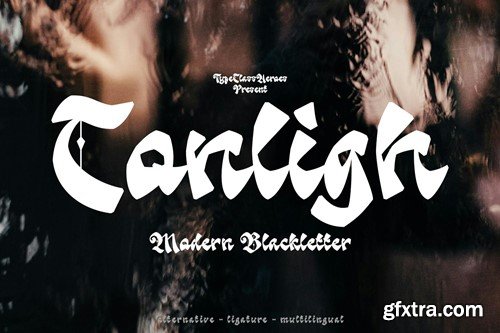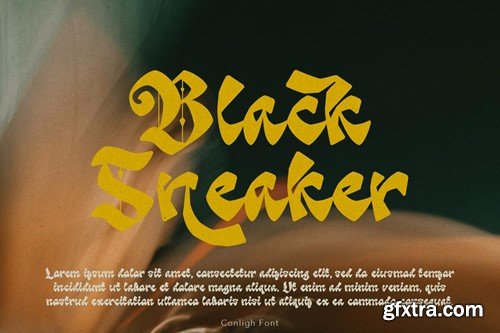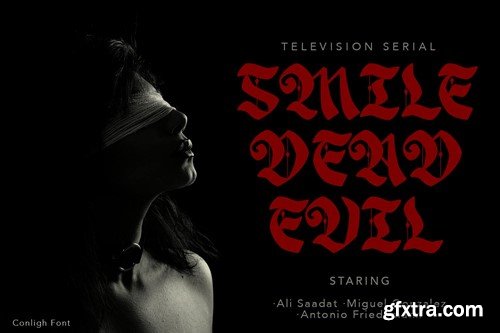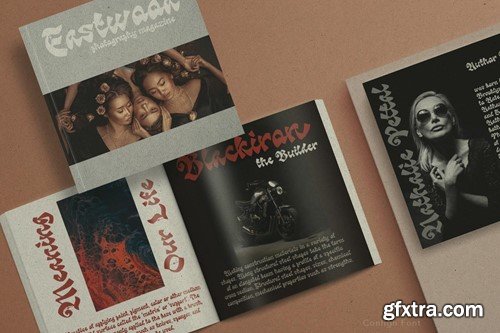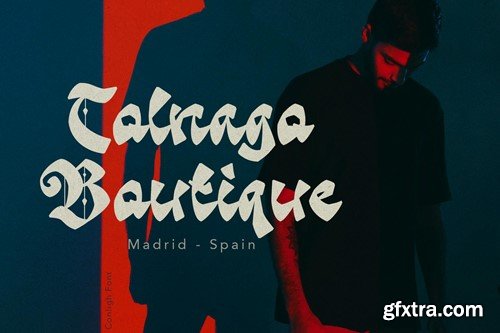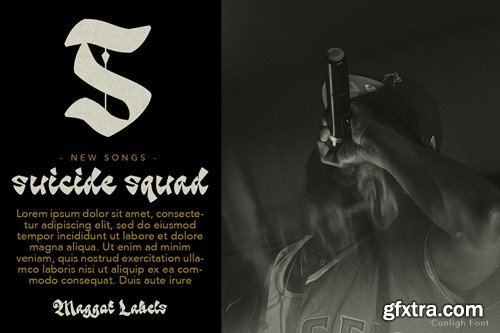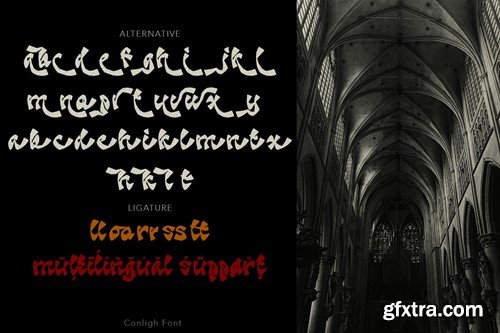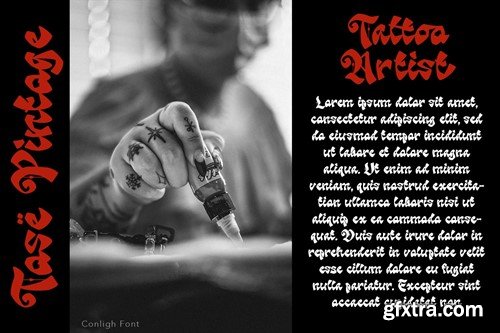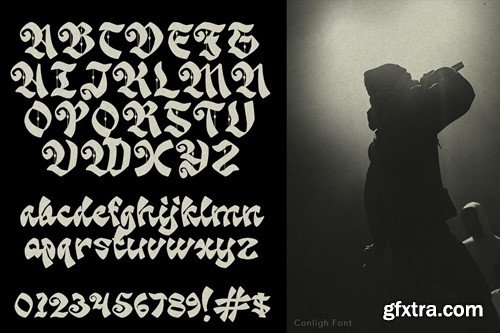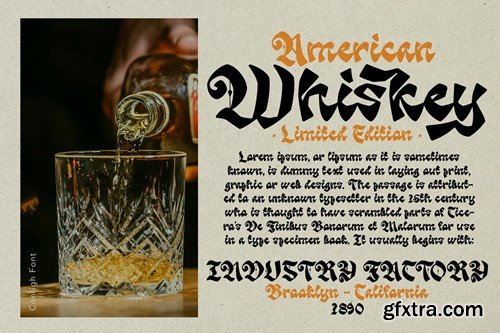
Conligh Blackletter Font
Conligh is a modern blackletter font, made with a stylish impression and supported by alternative with references to various letters that I combine. This font suitable to create any branding, product packaging, invitation, quotes, t-shirt, label, poster, logo etc.
Feature
• Uppercase & Lowercase
• Number & Symbol
• International Glyphs
• Multilingual support
• Alternative
• Ligature